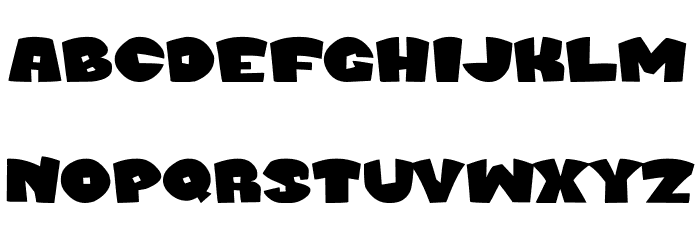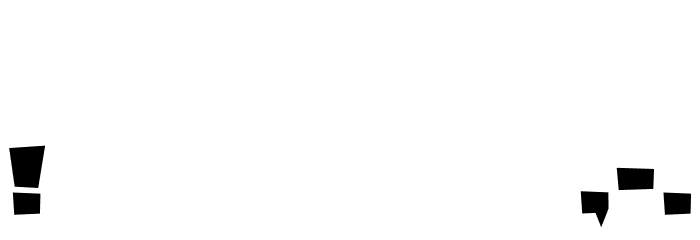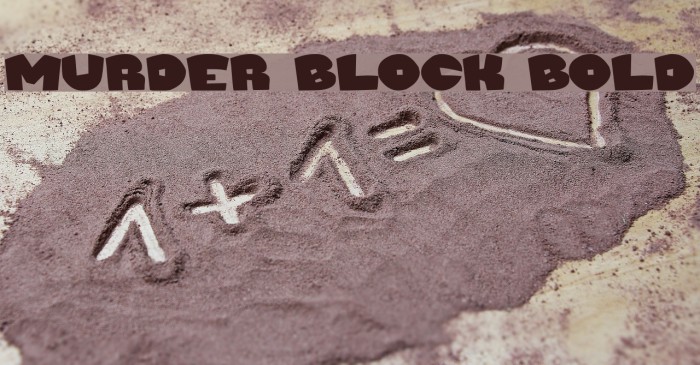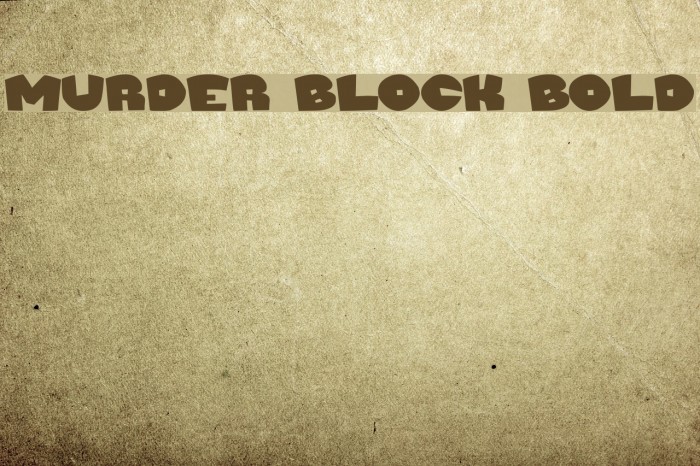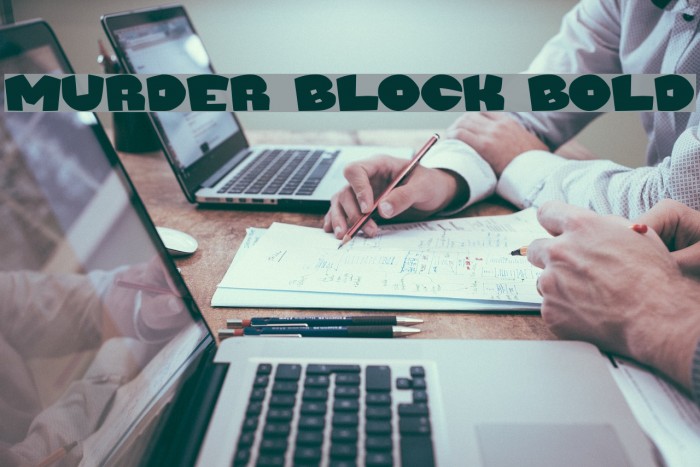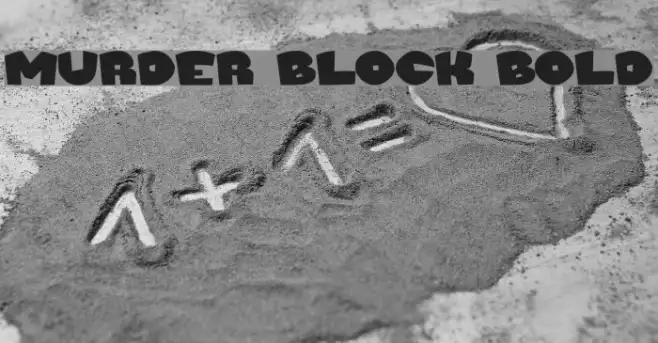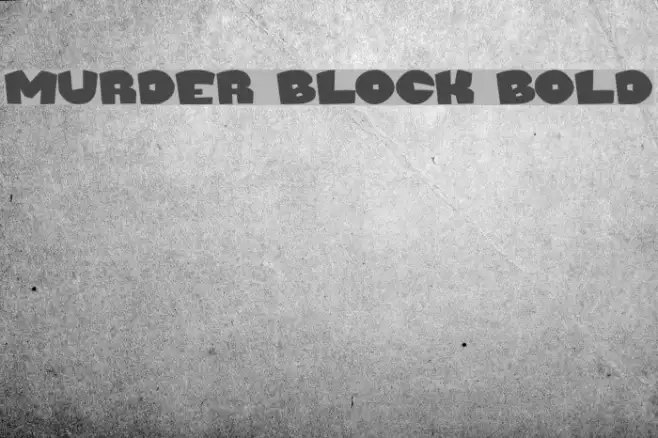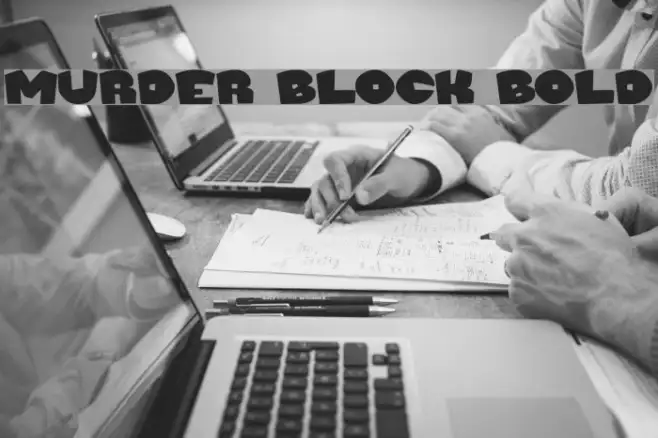
Murder Block Bold Font
This font features a bold and playful design with a blocky, cartoonish appearance. The characters are heavily stylized with exaggerated proportions, giving them a unique and eye-catching look. The uppercase letters are particularly prominent, with thick strokes and a slightly uneven baseline that adds to the whimsical feel. The font lacks lowercase letters, focusing instead on a strong, impactful presence. The special characters are similarly bold, maintaining the overall aesthetic. This font is ideal for projects that require a fun, informal touch.
A bold, playful font with a blocky, cartoonish style.
- Proposed Projects: Perfect for children's book covers, playful posters, comic-style graphics, and any project needing a fun, bold typeface.
- Overall Style: Playful, Cartoonish
- Use Case: Headlines, Posters, Logos